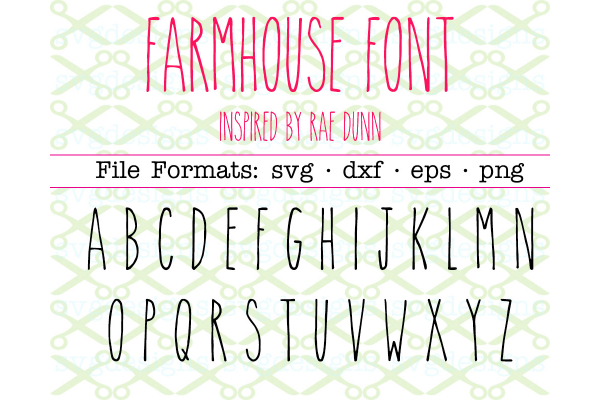
FARMHOUSE FONT, Rae Dunn Inspired Font - Cut files in File Formats SVG, DXF, EPS & PNG. 26 Upper case letters A-Z, as shown in ad picture.
This font was inspired by the popular letter style on the Ray Dunn designs, note that we are not affiliated with them in any way nor are we in any way selling their trademark or brand nor was this letter set made by them. We are using the term ONLY as ajdective to describe the SIMILAR lettering style of the Farmhouse letter set.